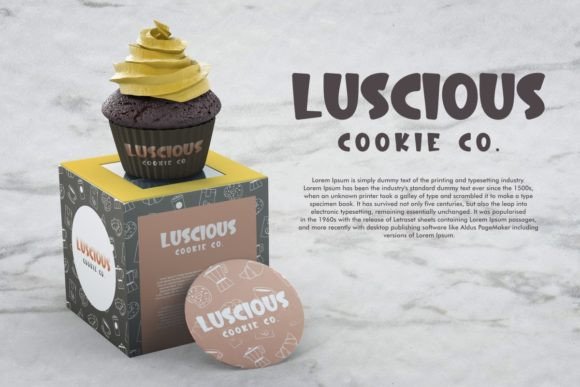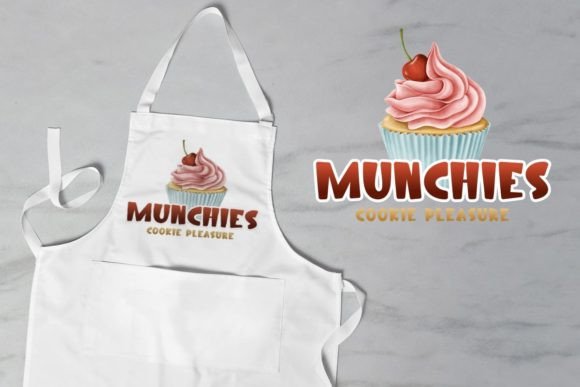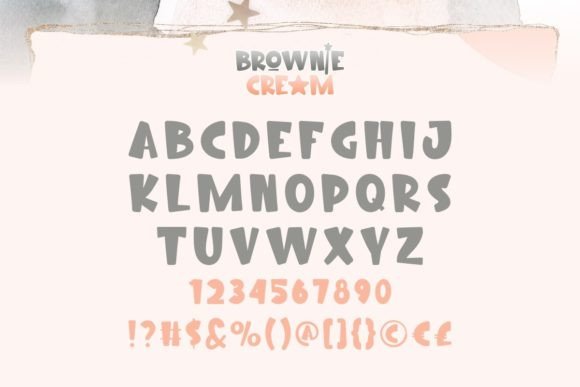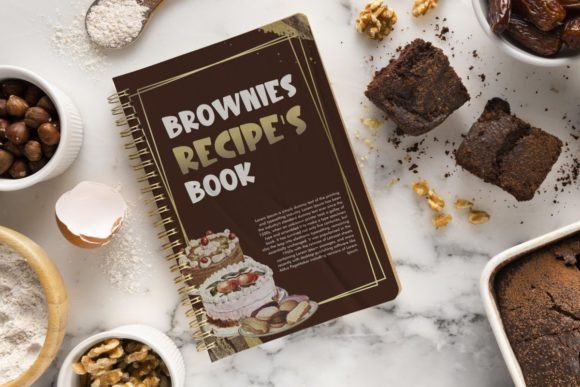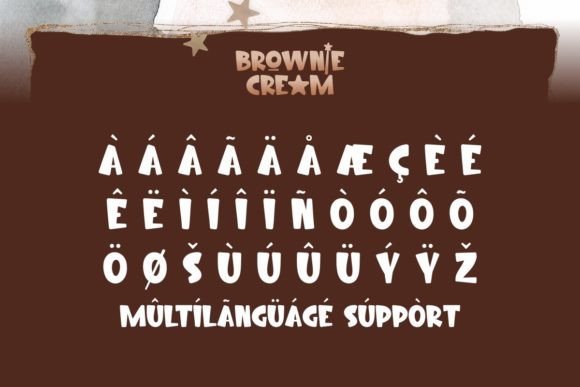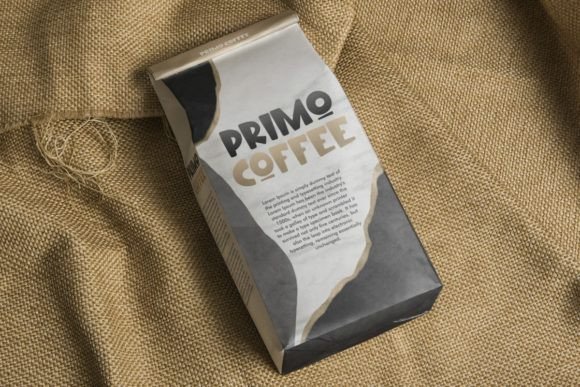
Indulge in the Sweet Taste of Typography
Do you remember the joy of baking a fresh batch of brownies and watching the gooey cream melt to perfection? For designers, that moment of pure delight can be recreated with the perfect font. Enter the Brownie Cream Font, a delightful uppercase display font that brings a smile to anyone’s face. This charming font is designed specifically for kids-related activities, from birthday invitations to product packaging.
As a designer, you’re always on the lookout for unique and creative ways to express your brand’s personality. The Brownie Cream Font is a valuable addition to any design arsenal, offering a sweet and playful touch that’s perfect for café logos, candy shop signs, or cooking class blogs. With its whimsical style and melted brownie cream-inspired aesthetic, this font is sure to make your designs stand out from the crowd.
Brownie Cream Font Key Features
- Font Style: A unique, handwritten font with a mix of elegance and playfulness, perfect for titles and headings.
- Unique Characteristics: Features a distinctive, creamy texture and subtle imperfections, giving it a hand-drawn feel that sets it apart from other fonts.
Brownie Cream Font Review
Overall, I found the Brownie Cream Font to be a sweet addition to any design project. ✨ The font’s unique blend of modern and vintage elements makes it a great choice for creative and artistic projects. The subtle texture and worn look give it a charming, handcrafted feel that’s hard to resist. ✨ The font’s versatility also shines through in its wide range of applications, from digital displays to print materials.
However, I did encounter a few limitations with the Brownie Cream Font. ⚠️ The font’s lack of bold weight options can make it difficult to create contrast in certain designs. Additionally, the font’s texture can sometimes clash with other design elements, requiring more careful consideration when pairing it with other fonts and graphics.
- Unique blend of modern and vintage elements
- Subtle texture and worn look
- Wide range of applications
- High-quality digital and print performance
- Lack of bold weight options
- Texture can clash with other design elements
Getting the Most Out of the Brownie Cream Font
To get the most out of the Brownie Cream Font, consider the following tips:
- Use the font in combination with other design elements to create a cohesive look.
- Experiment with different font sizes and styles to add emphasis and hierarchy.
- Use the font in a variety of contexts, such as headings, body text, and titles.